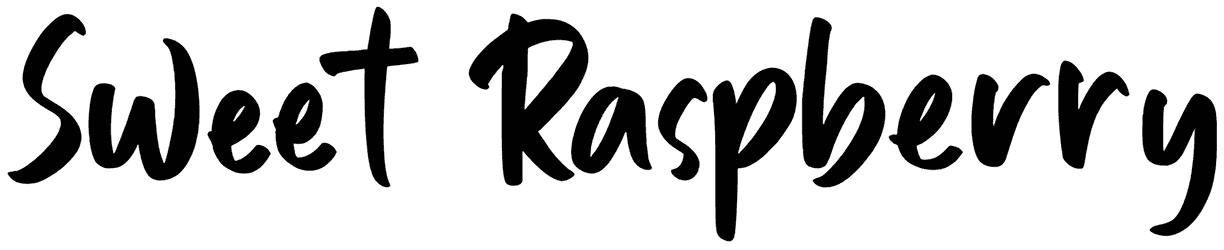
Sweet Raspberry Font
You can choose a handwritten font and be sure it will communicate well with your bystanders. Sweet Raspberry has a fresh, manual face with a comfortable and freestyle mood. As a multi-usage font, you can count on Sweet Raspberry to nicely show your design, such as flyers, quotes, social media posts, or others, and enjoy being refreshed.